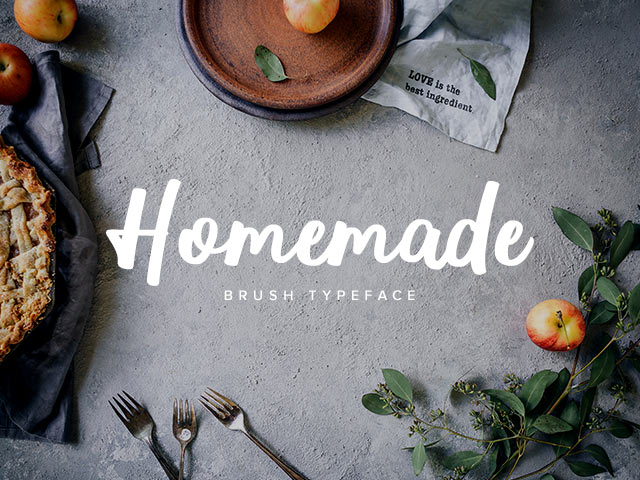
Homemade Brush Typeface
Homemade brush typeface by Locomotype is the best choice if you wanna bring a nice quote to a t-shirt, letter, mug or whatever in the most eye-popping way.
Comes in two different brush styles and includes OpenType features like ligatures for natural double letters and contextual alternates for casual terminal forms.